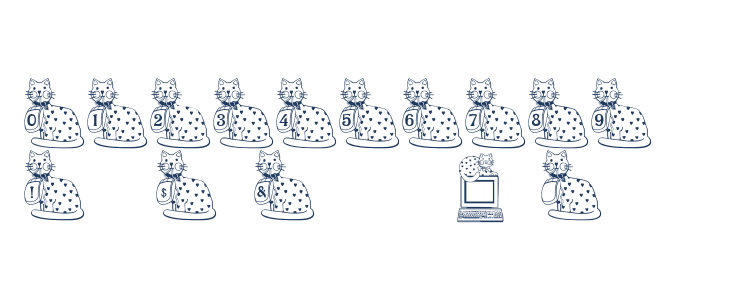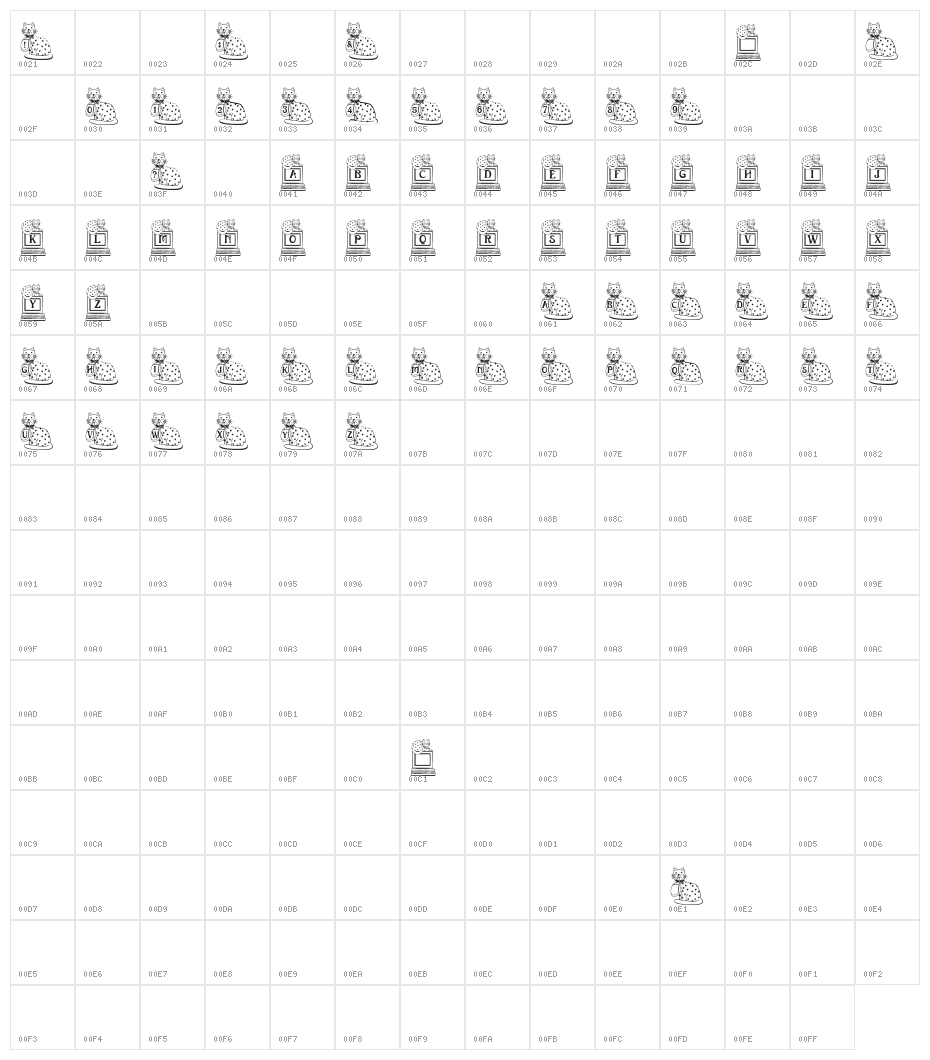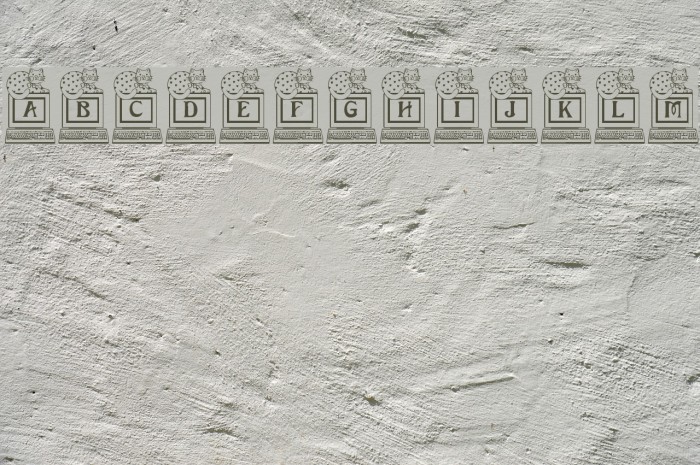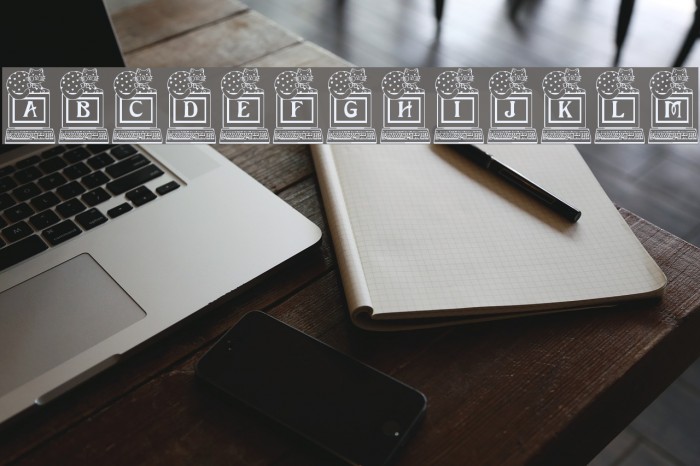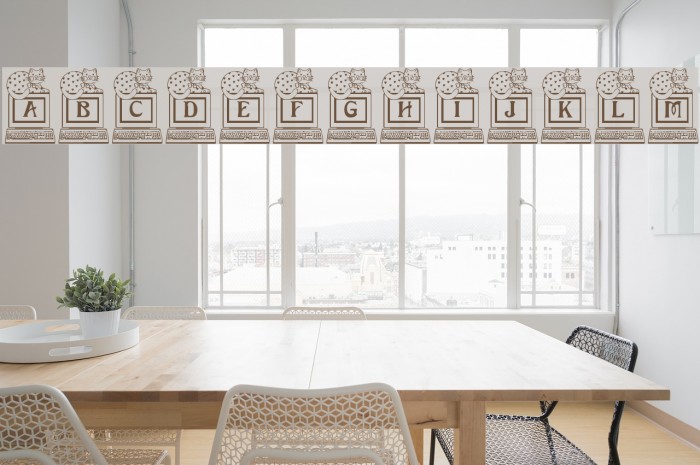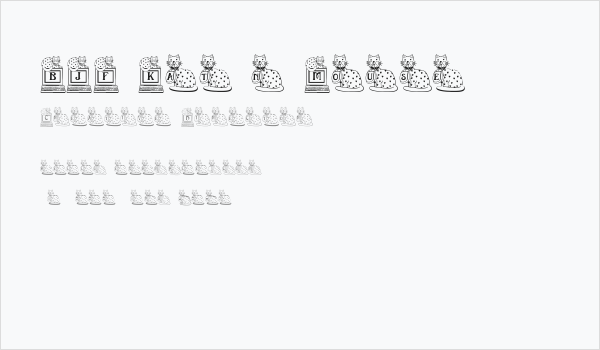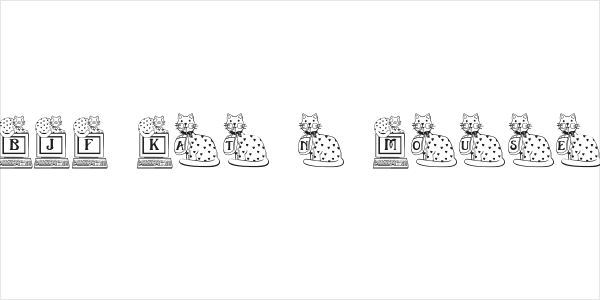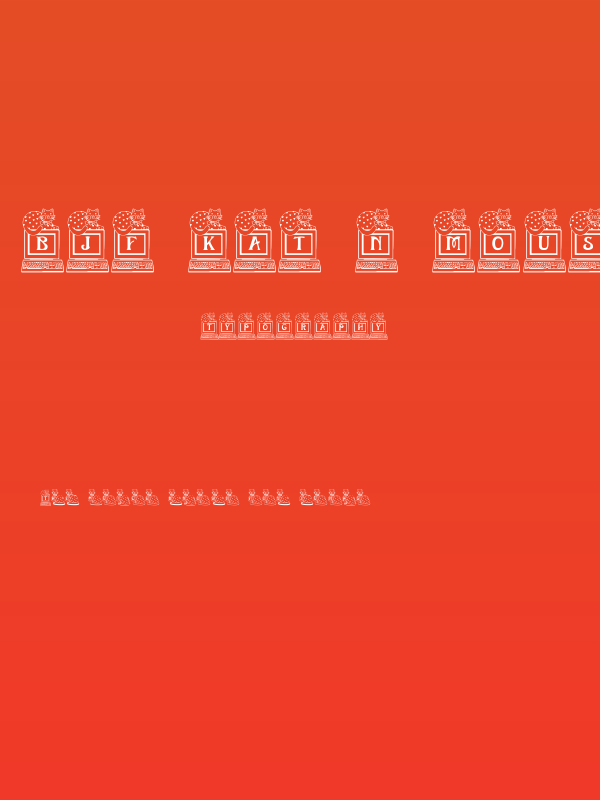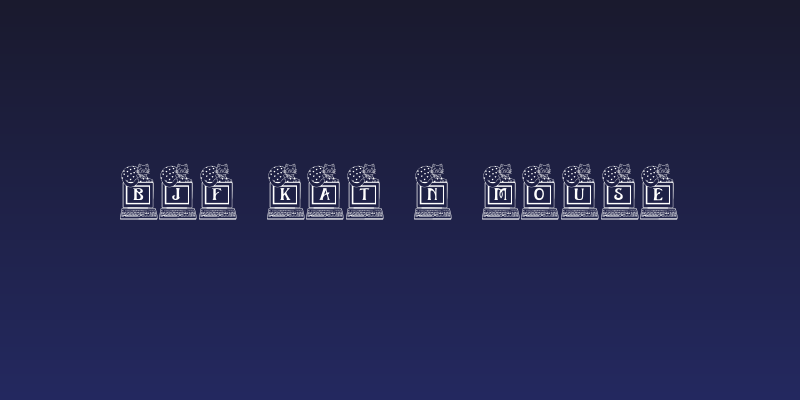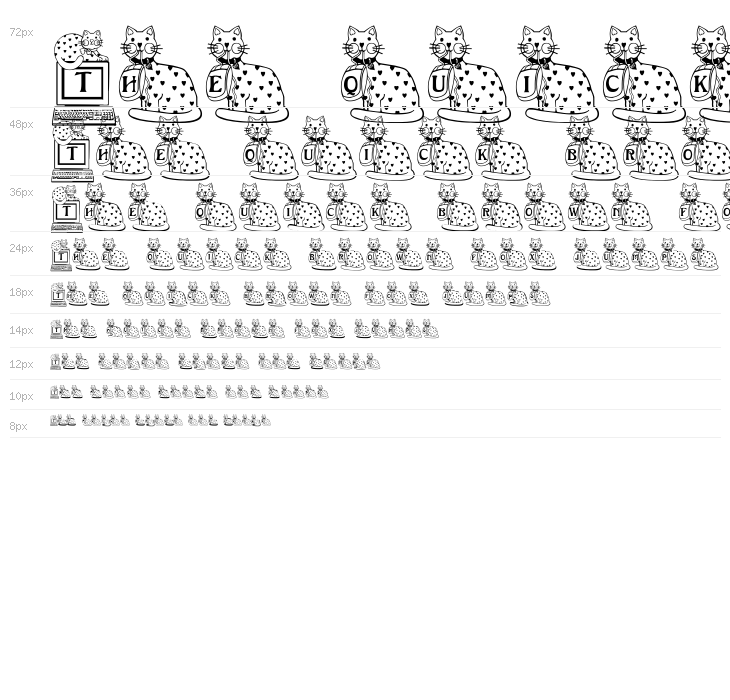
BJF Kat n Mouse Font
BJF Kat n Mouse Description
This whimsical font features playful cat illustrations integrated with each character, creating a unique and charming design. Each letter and number is accompanied by a cartoonish cat, adding a sense of fun and creativity. The uppercase letters are framed, while the lowercase letters and numbers are placed on the cat's body. The font includes a variety of special characters, each maintaining the playful cat theme. This font is perfect for projects that require a lighthearted and imaginative touch, making it ideal for children's books, playful branding, or creative invitations.
Overall StyleWhimsical
Use CaseLogos, Invitations, Children's Books
Proposed ProjectsIdeal for children's books, playful branding, creative invitations, and whimsical designs.